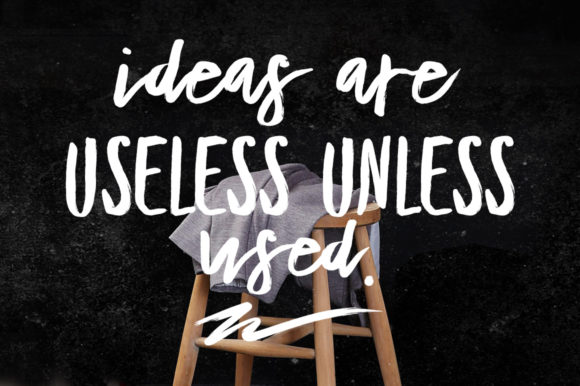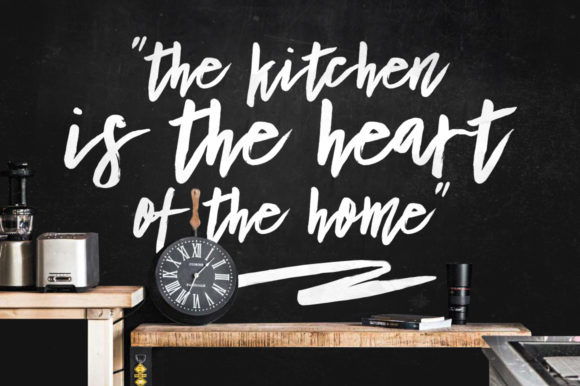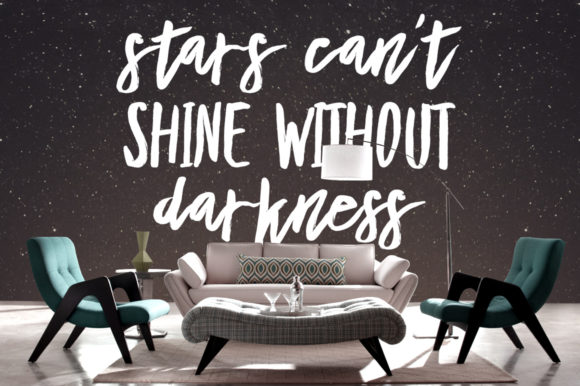
About Bottle Massow Font
Meet Bottle Massow, the one-of-a-kind and playful handwritten font born from the strokes of a brush pen. With its clean and slightly quirky style, this font is a match made in design heaven for all your creative needs, from logos and branding to social media graphics and crafty DIY projects.
Bottle Massow’s distinctiveness sets it apart, making your designs truly stand out. The brush pen’s artistic flair infuses each character with a unique personality, bringing a touch of handcrafted charm to every word. Its versatility makes it a go-to choice for any project that craves a fun and authentic touch.
Design your logos with Bottle Massow, and watch as your brand identity comes to life. Its playful and approachable nature will captivate your audience, leaving a lasting impression that speaks volumes about your business.
Unleash Bottle Massow’s creativity on your social media posts, where it will enliven your content and engage your followers. The font’s playful energy will foster a sense of connection, encouraging likes, shares, and comments.
Incorporate Bottle Massow into your branding materials, and witness how it breathes life into your marketing materials. Whether on brochures, flyers, or business cards, the font’s charm will convey your brand message with an artistic flair.
For your crafty DIY projects, Bottle Massow is a true ally. Infuse your handmade cards, posters, and invitations with its distinctive handwritten appeal, adding a personal touch that resonates with your recipients.
Embrace the uniqueness of Bottle Massow and let it inspire your creative journey. From playful designs to professional branding, this font offers a delightful range of possibilities, empowering you to craft unforgettable creations.
So, grab your virtual brush pen and get ready to experiment with Bottle Massow. With its fun and quirky character, this handwritten font will spark endless creativity and make every project an exciting adventure.